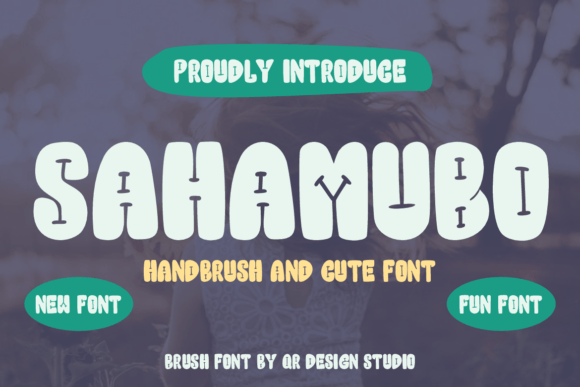
Unleash the power of authenticity and boldness with Sahamubo Font, the ultimate display font crafted to elevate your branding projects to new heights.
Embark on a typographic journey where your designs take center stage, exuding an aura of confidence and unwavering strength. Sahamubo Font is your trusty companion, guiding you towards creating logos that command attention, book titles that leap off the shelves, and posters that ignite imaginations.
Dive into a world of limitless possibilities, where your creativity knows no bounds. Sahamubo Font's bold and captivating strokes add an instant touch of sophistication to any project, whether it's a sleek business card or an eye-catching sports jersey.
Step into the spotlight and let your designs shine brighter than ever before. Sahamubo Font is your secret weapon, transforming ordinary words into extraordinary statements. Its unique and captivating style demands attention, ensuring your message cuts through the noise and leaves a lasting impression.
Join the ranks of those who dare to stand out, those who embrace the power of typography to create something truly remarkable. Sahamubo Font is your gateway to greatness, empowering you to craft designs that resonate with your audience and leave an indelible mark on their minds.
Don't settle for the ordinary, embrace the extraordinary. Choose Sahamubo Font today and unlock a world of endless creative possibilities.